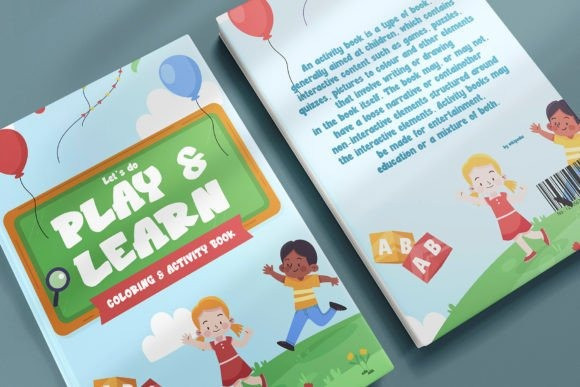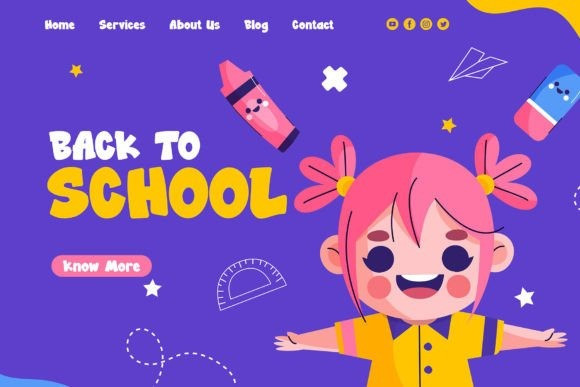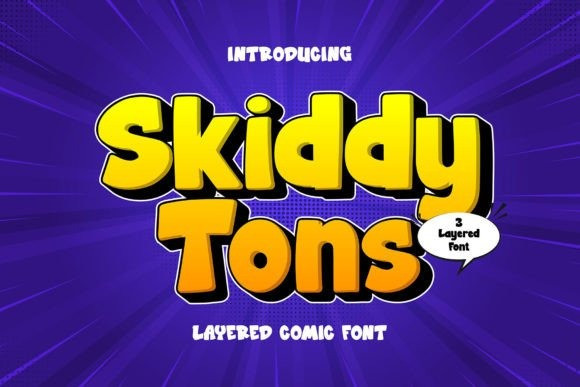
Skiddy Tons Font
Skiddy Tons Font, a delightful display font. Characterized by its cute appeal, Skiddy Tons comes complete with an irresistible 3D effect that features a shadow alongside inner characters. This playful, energetic font is the perfect choice when designing children’s projects, posters, or headlines, especially when you want to sprinkle a dash of fun and lively essence.
Skiddy Tons’ distinctive, eye-popping style is sure to make your message shine, captivating your audience with its engaging appeal. Whether you’re crafting a school project, designing playful merchandise or creating birthday invitations, Skiddy Tons infuses your text with an invigorating dose of creativity and liveliness – the quintessential choice for grabbing attention and spreading joy.